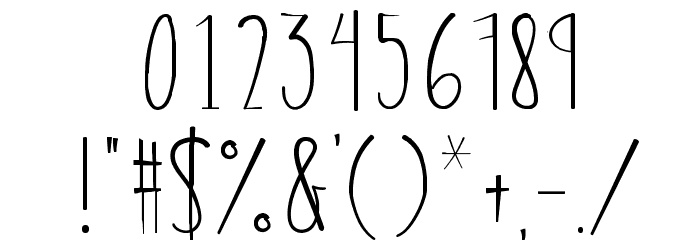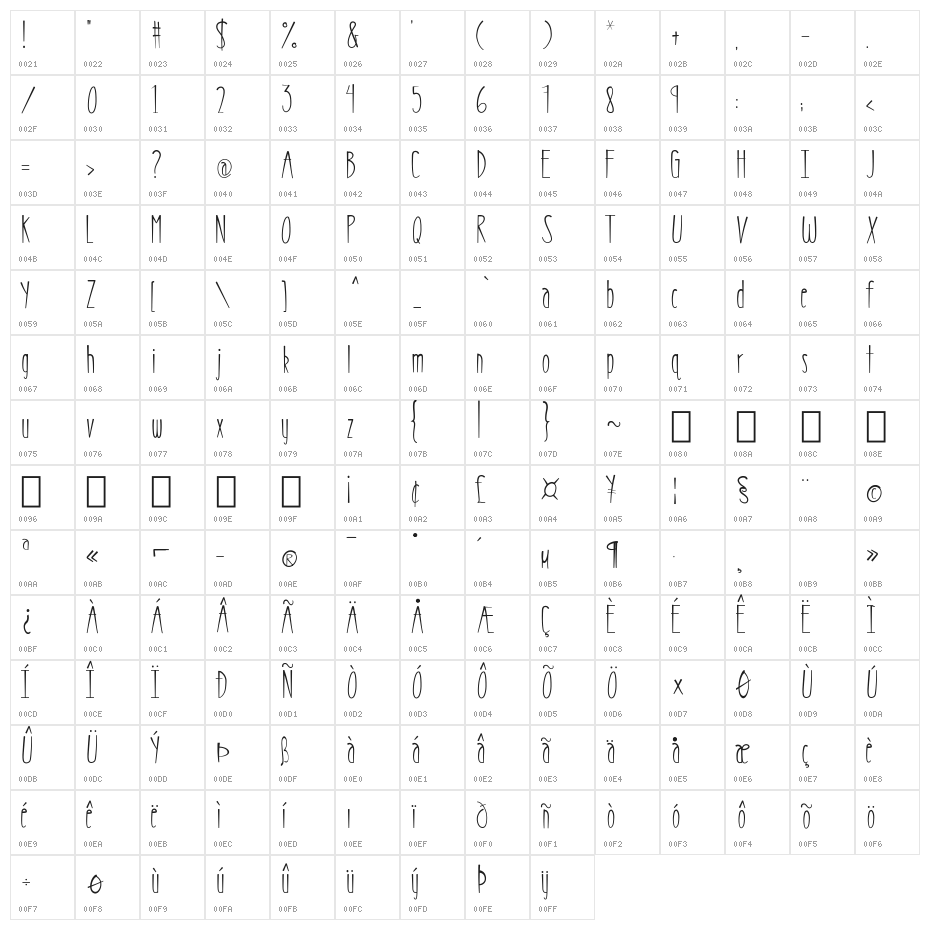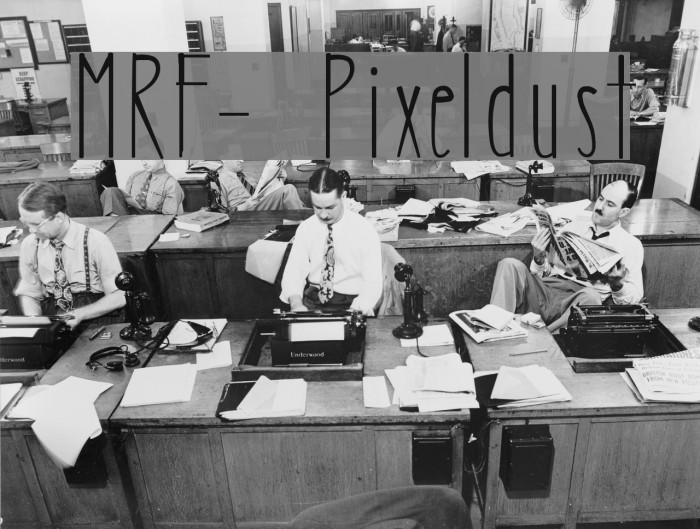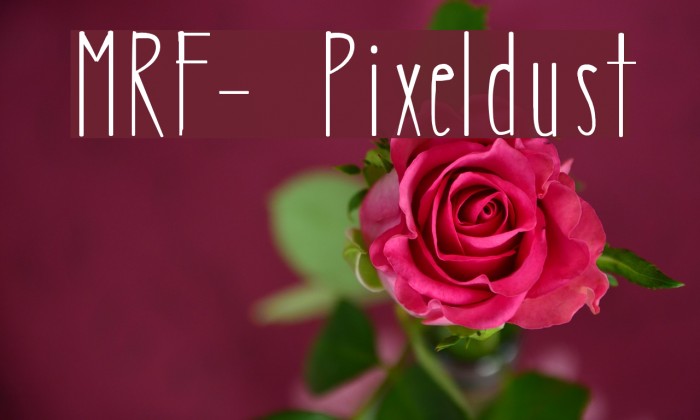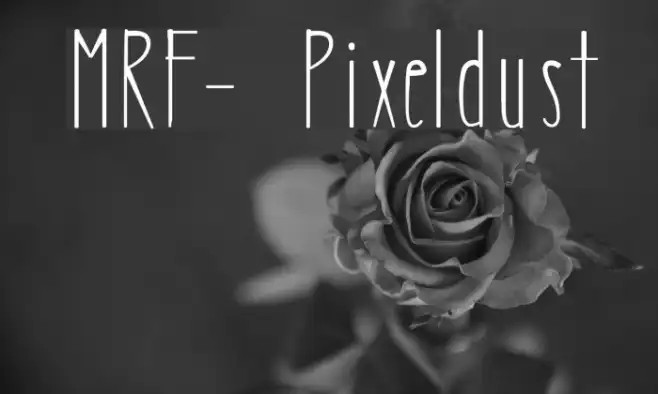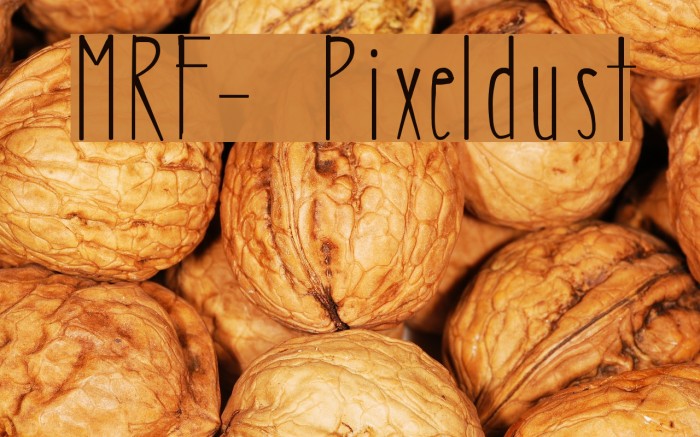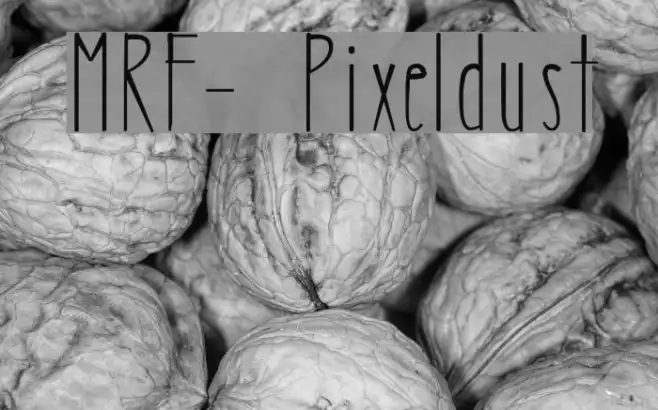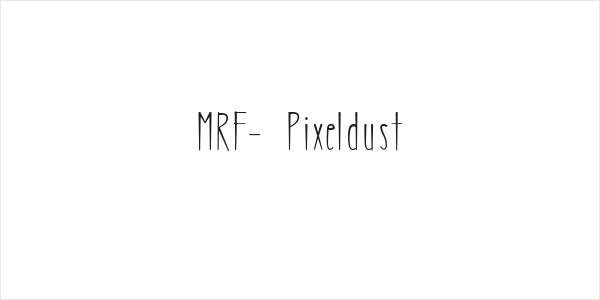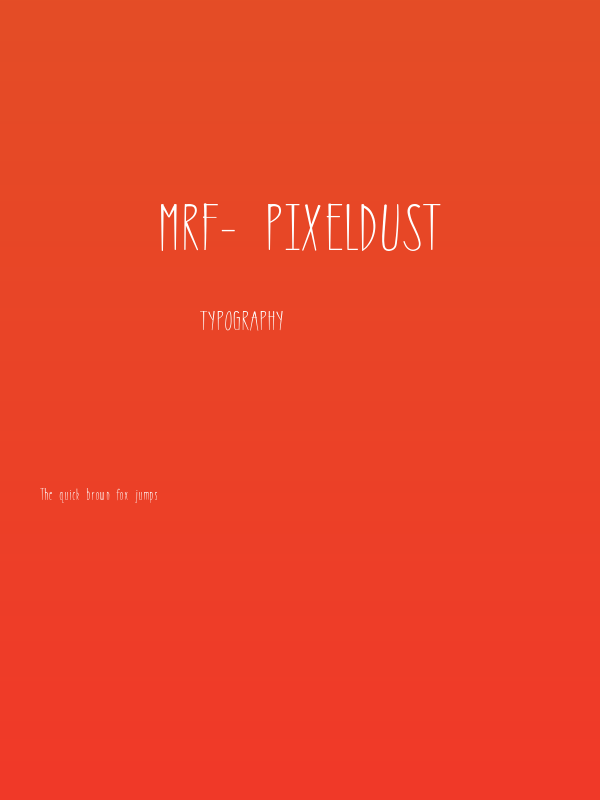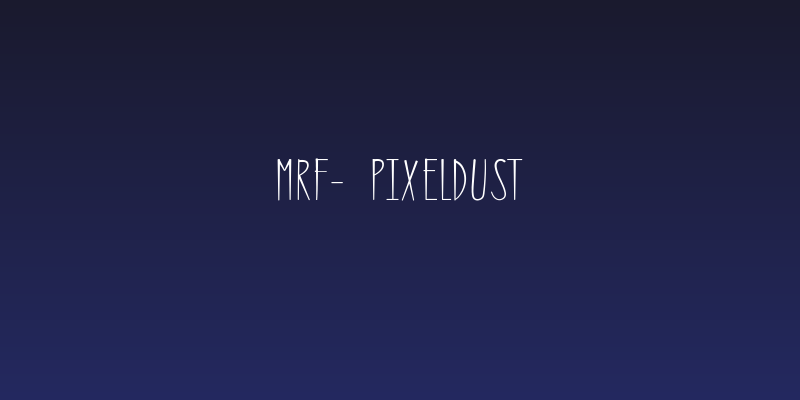
MRF- Pixeldust Font
MRF- Pixeldust Description
This font features a tall, narrow design with a playful and quirky character. The letters are elongated with a slight irregularity that adds a whimsical touch. The strokes are consistent in width, giving it a clean and modern appearance. The uppercase and lowercase letters maintain a uniform height, enhancing readability while retaining a unique style. Numbers and special characters follow the same slender and elongated form, ensuring a cohesive look across all text elements. This font's distinctive style makes it suitable for creative and artistic projects.
| Overall Style | Modern, Whimsical |
| Proposed Projects | Ideal for children's books, creative posters, playful branding, and artistic invitations. |